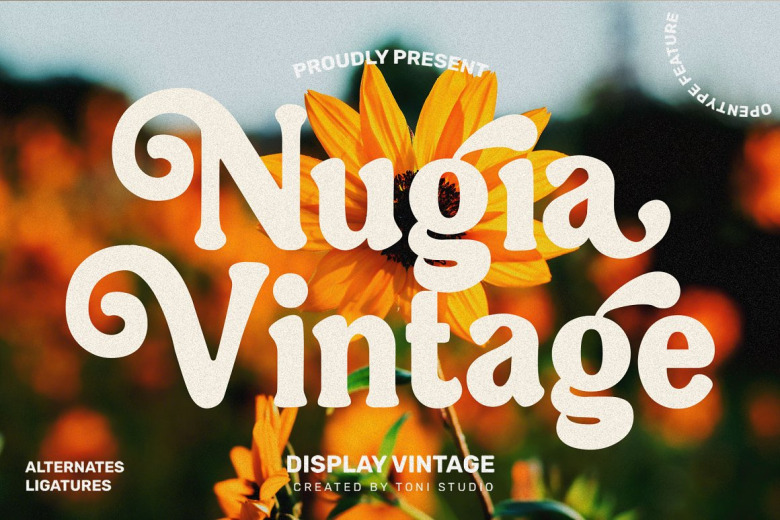
Nugia Vintage Font
Nugia Vintage new retro serif fontis here! Nugia is a new retro styled font with bold curves, nugia give off the groovy ”70s vives but serifs on it back to traditional. Nugia itself could be perfectly placed on that nostalgic mood board and type in its own vintage logo. It includes lowercase and uppercase letters + additional multilingual numbers, punctuation & letters.
Nugia Vintage Serif Font